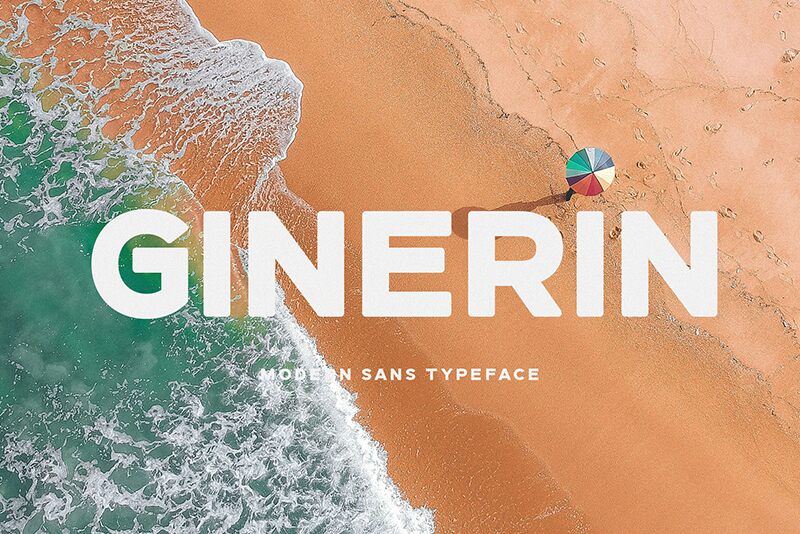
Ginerin Regular
Ginerin is a bold, eye-catching sans-serif font that demands attention. Designed by BrandSemut, this expanded typeface exudes a powerful, confident presence.
The thick, unapologetic strokes create an impactful visual statement, making Ginerin well-suited for headlines, logos, and other high-impact design elements. Its expansive width lends a sense of grandeur, lending a touch of drama to any text it graces. The clean, minimalist aesthetic of this font allows it to seamlessly integrate into a wide range of design styles, from modern and industrial to edgy and contemporary.
Whether used for branding, editorial layouts, or attention-grabbing digital interfaces, Ginerin's bold, distinctive personality is sure to leave a lasting impression on audiences.